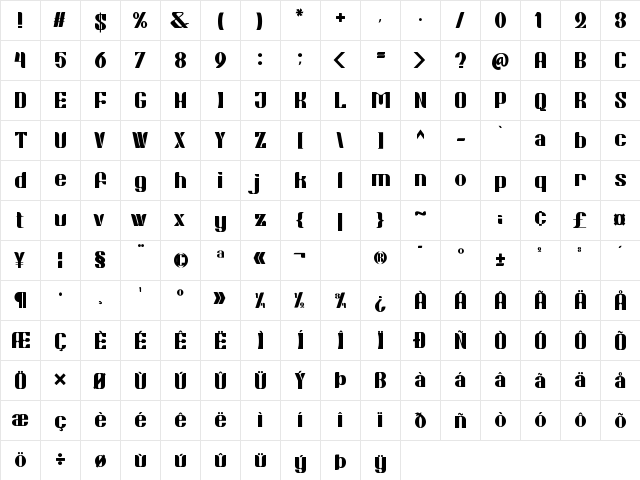
Think Bold
| Foundry | EmbunStudio |
| Designer | Aditya Rezki Apriyadi |
Design Context for Think Typeface
Think is a composed and adaptable typeface that performs quietly and consistently across a wide range of design contexts. Its bold stroke weight gives it real presence on the page.